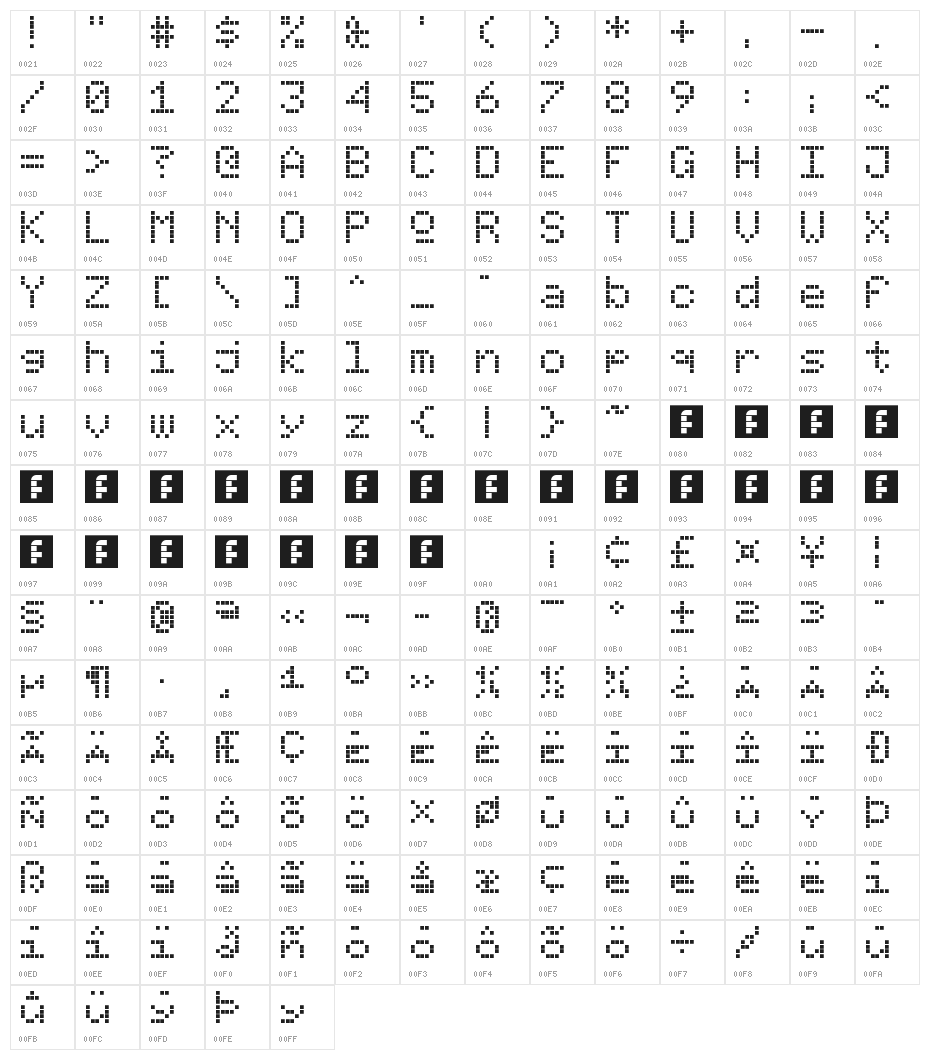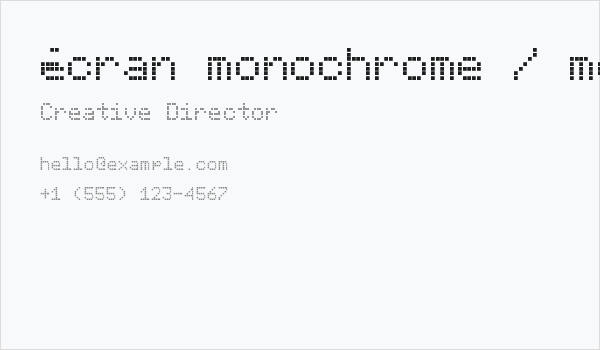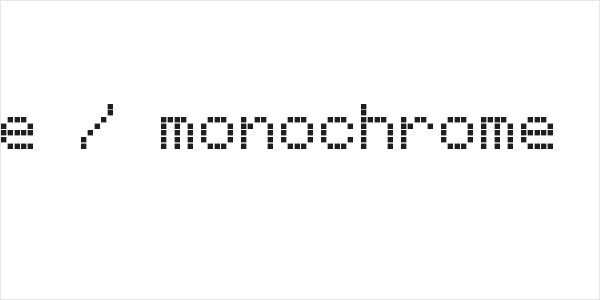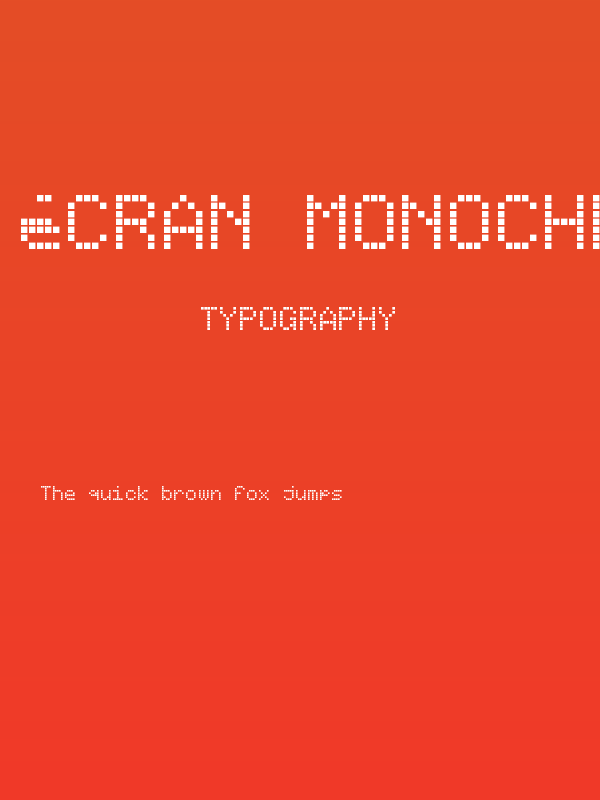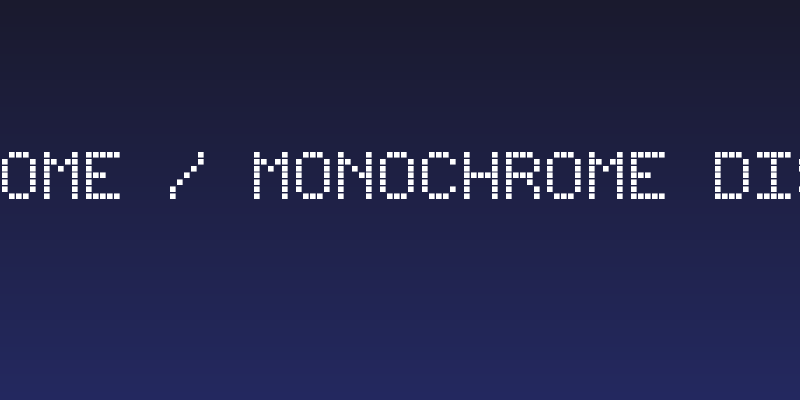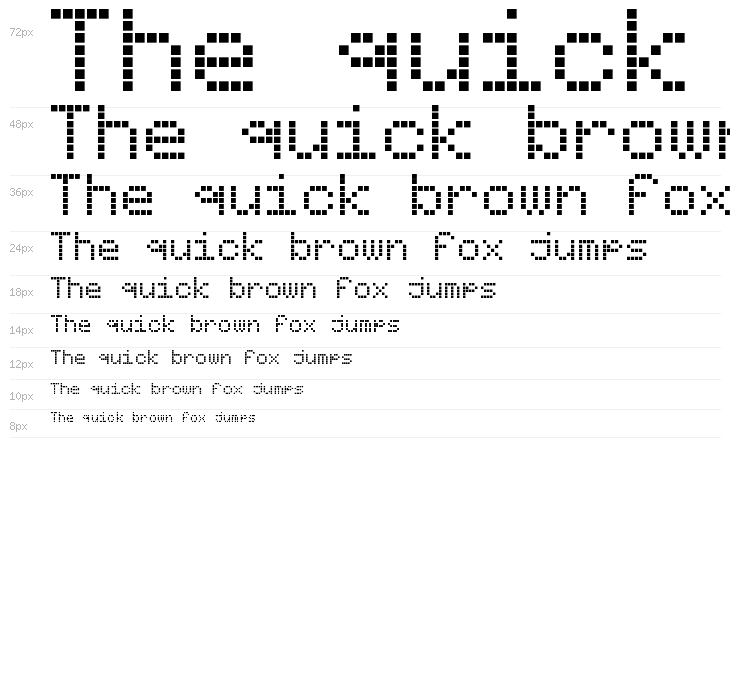
écran monochrome / monochrome display Regular Font
écran monochrome / monochrome display Regular Description
This font features a distinct pixelated design, reminiscent of early digital displays and retro video games. Each character is constructed from a grid of small squares, creating a blocky and geometric appearance. The uniformity in the pixel size across all characters gives it a cohesive and structured look. This style is highly legible at various sizes, making it suitable for both digital and print media. The font's nostalgic aesthetic is perfect for projects that aim to evoke a sense of vintage technology or classic arcade games. Its simplicity and clarity ensure that it stands out in any design context.
| Use Case | Headlines, Logos, Digital displays |
| Proposed Projects | Ideal for retro-themed designs, video game graphics, digital art projects, and tech-related branding. |